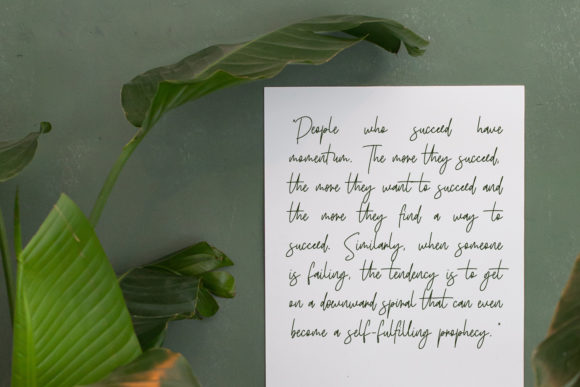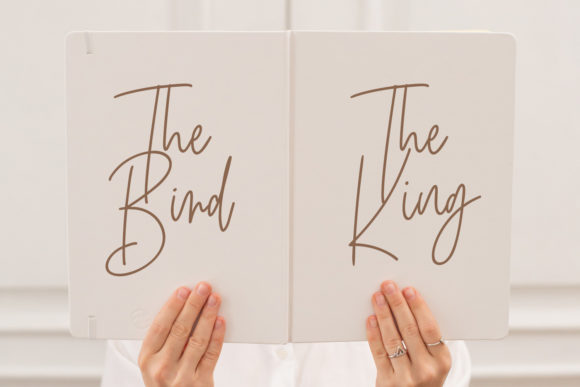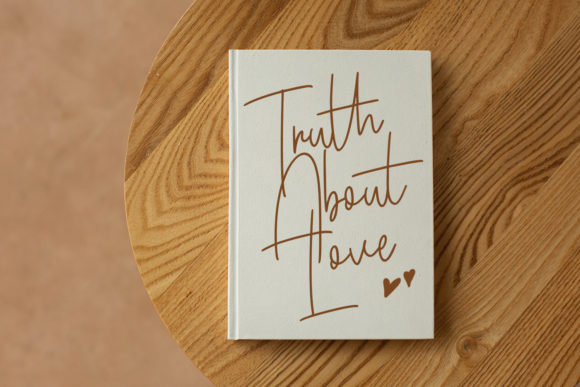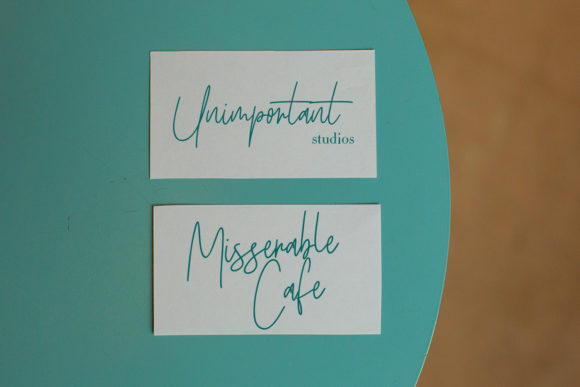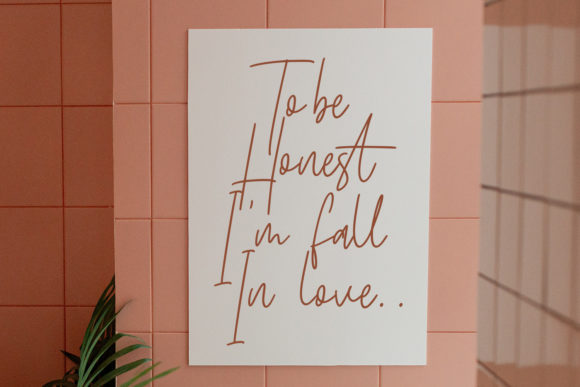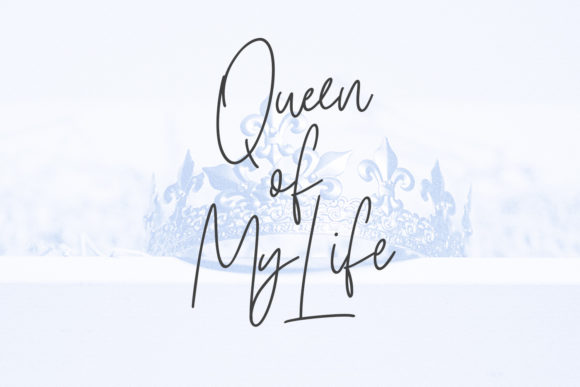
Unleash Your Creativity with Birdflocks Script Font
Have you ever stared at a blank canvas, longing for the perfect font to bring your design to life? That’s exactly how I felt when I first discovered the Birdflocks Script Font. Its delicate, thin lines and elegant curves transported me to a world of endless possibilities.
Birdflocks Script Font is a fashion-forward script font that’s perfect for adding a touch of sophistication to your designs. Whether you’re creating beautiful wedding invitations, stunning social media posts, or gorgeous stationery art, this font is sure to make your work stand out. As a designer, you’ll appreciate the versatility of Birdflocks Script Font, which can be used to convey elegance, whimsy, or playfulness, depending on your vision.
Birdflocks Script Font Key Features
- Font Type: Script Font
- Unique Characteristics: Elegant, cursive script with a natural, handwritten feel; perfect for creative and artistic projects
Birdflocks Script Font Review
Overall, I have mixed feelings about the Birdflocks Script Font. Let’s start with the good stuff: ✨ The font is highly legible, even at smaller sizes. It’s perfect for headings and titles where you want to make a statement without overwhelming the reader. The flowing curves and smooth lines also give it a whimsical feel that’s great for creative projects.
✨ The font is also highly versatile and can be used for a wide range of projects, from branding and marketing materials to social media and digital products. Additionally, it’s a great choice for designers who want to add a touch of elegance and sophistication to their designs.
However, there are some limitations to consider: ⚠️ The font can be a bit too ornate for some projects, and the complexity of the letters can make it difficult to read in certain contexts. Additionally, the font may not be suitable for projects where a more minimalist or modern aesthetic is desired.
Here are some specific limitations to keep in mind:
- May not be suitable for projects where simplicity is key
- Can be difficult to read in certain contexts
Overall, I would recommend the Birdflocks Script Font for designers who want to add a touch of elegance and sophistication to their projects. However, it’s not the best choice for every project, and designers should carefully consider the context and audience before using it.
Some tips for getting the most out of Birdflocks Script Font include:
– Using it for titles and headings to add a touch of elegance.
– Pairing it with other fonts to create a unique and eye-catching design.
– Using it for invitations, greeting cards, and other paper crafts.
– Experimenting with different font sizes and colors to create a custom look.